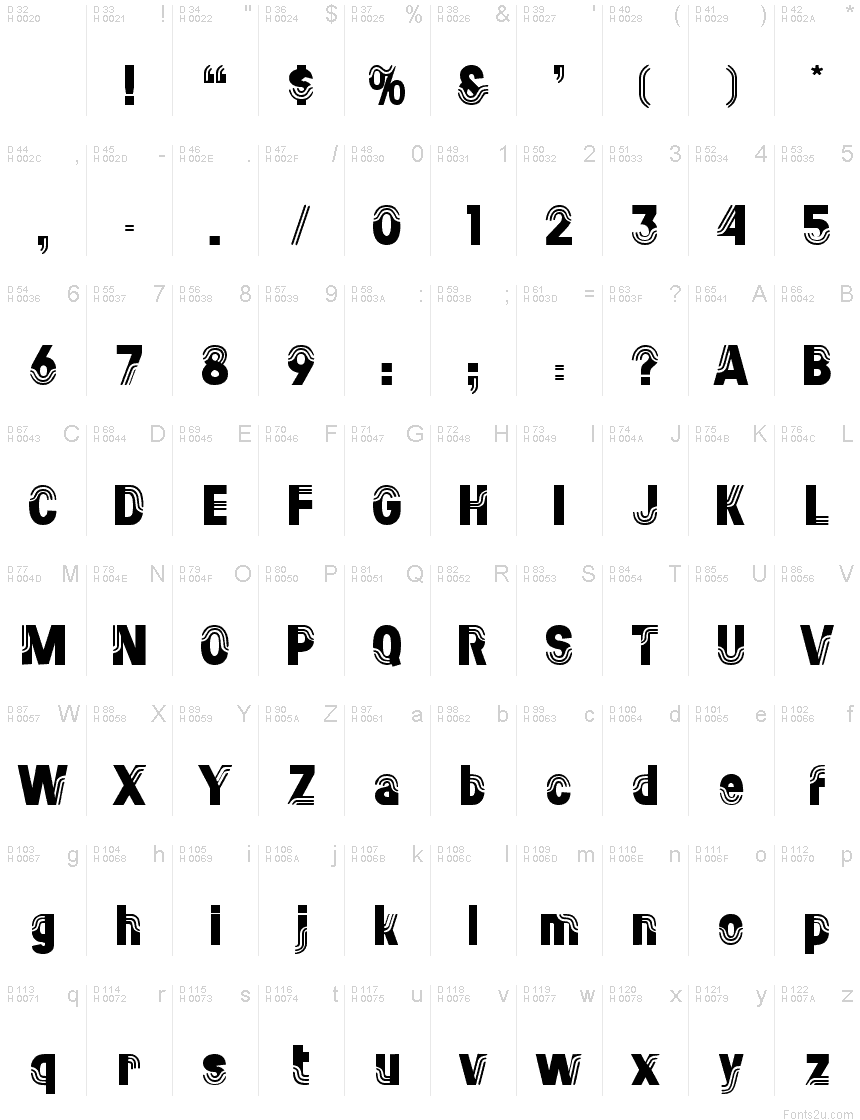
Simon is a free retro display font built from broad, geometric letterforms. Solid strokes combine with narrow parallel lines that bend around the curves like routed tracks. The contrast between dense shapes and open stripes gives the lettering a distinctly 1970s graphic quality.
A music poster is an especially convincing setting for its strong silhouette and flowing line motif. The same construction can shape record packaging, club branding, and festival merchandise. Those repeated stripes can echo vinyl grooves, sound waves, or curved patterns in accompanying artwork.